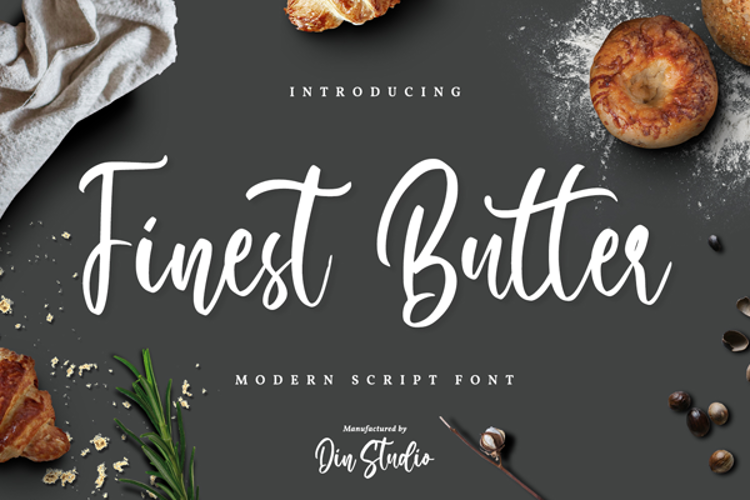
Finest Butter Font
Product Description :
Finest Butter is a modern script font. Made for any professional project branding. It is the best for logos, branding and of quotes. Every letter has a unique and beautiful touch.
Features include:
• Ligatures
• Multilingual Supports
• Numerals and Punctuations